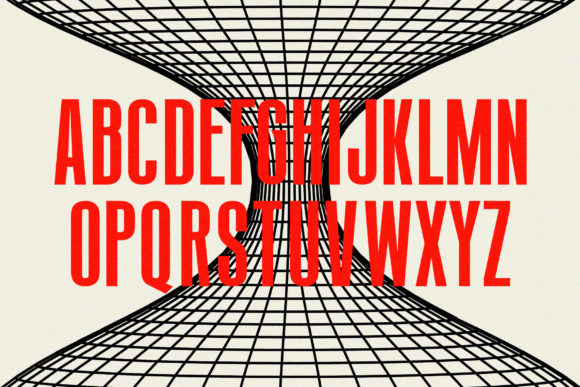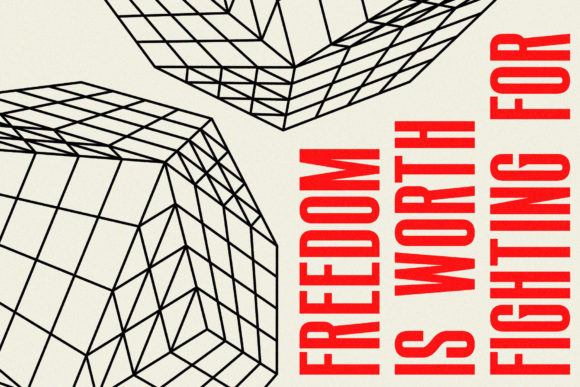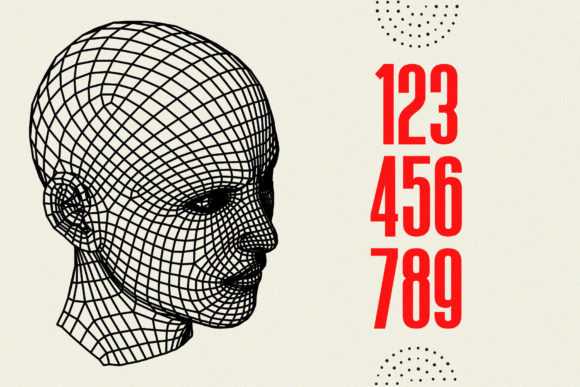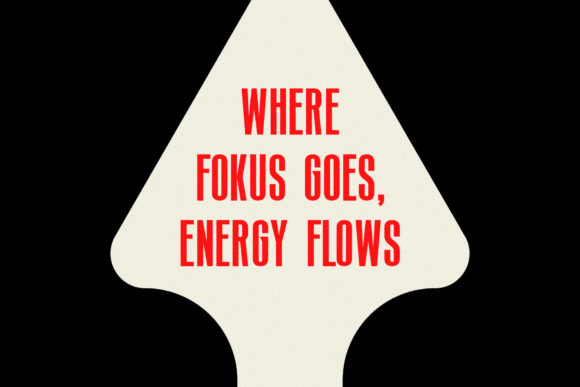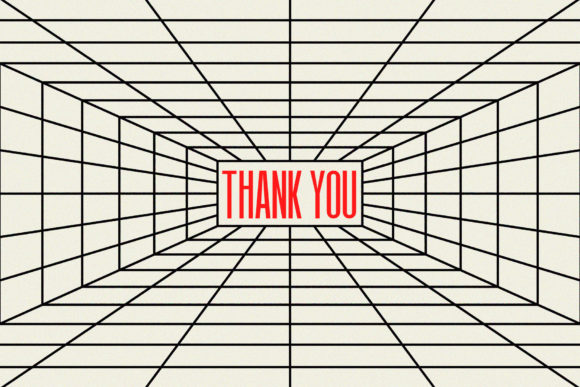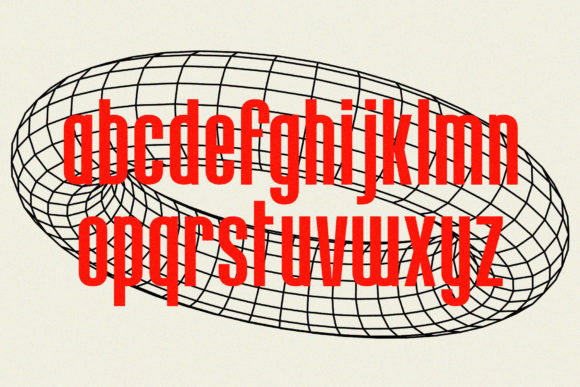
Fokus Font: The Ultimate Display Font for Bold Designs
Are you tired of using the same old fonts for your designs? Look no further than Fokus Font, a cool, bold, and thick lettered display font that’s perfect for making a statement. Whether you’re creating a food menu, poster, flyer, or print material, Fokus Font is sure to grab attention and leave a lasting impression.
What is Fokus Font?
Fokus Font is a modern display font designed to add a touch of boldness and sophistication to your designs. Its thick letters and clean lines make it highly legible, even at large sizes. This font is perfect for designers and crafters who want to create eye-catching materials that stand out from the crowd.
Key Features of Fokus Font
- Bold and Thick Letters: Fokus Font features bold and thick letters that are perfect for creating eye-catching headlines and titles.
- Clean Lines: The font’s clean lines and simple design make it highly legible, even at large sizes.
- Modern Design: Fokus Font has a modern design that’s perfect for creating fresh and contemporary designs.
- Highly Versatile: This font can be used for a wide range of design projects, from food menus and posters to flyers and print materials.
Endless Possibilities with Fokus Font
With Fokus Font, the possibilities are endless. Here are just a few ideas to get you started:
- Food Menus: Use Fokus Font to create mouth-watering food menus that showcase your restaurant’s offerings.
- Posters: Create eye-catching posters that grab attention and convey your message.
- Flyers: Use Fokus Font to create flyers that stand out from the crowd and drive results.
- Print Materials: From business cards to brochures, Fokus Font is perfect for creating a wide range of print materials.
Why Choose Fokus Font?
So why choose Fokus Font for your designs? Here are just a few reasons:
- Unique and Eye-Catching: Fokus Font is a unique and eye-catching font that’s sure to grab attention.
- Highly Legible: The font’s clean lines and simple design make it highly legible, even at large sizes.
- Versatile: Fokus Font can be used for a wide range of design projects, making it a great addition to your font library.
Tips for Using Fokus Font
Here are a few tips for using Fokus Font in your designs:
- Use it for Headlines: Fokus Font is perfect for creating bold and eye-catching headlines.
- Experiment with Colors: Try experimenting with different colors to find the perfect combination for your design.
- Pair it with Other Fonts: Fokus Font can be paired with other fonts to create a unique and interesting design.
In conclusion, Fokus Font is a cool, bold, and thick lettered display font that’s perfect for making a statement. With its unique and eye-catching design, Fokus Font is sure to grab attention and leave a lasting impression. Whether you’re a designer or crafter, Fokus Font is a great addition to your font library.